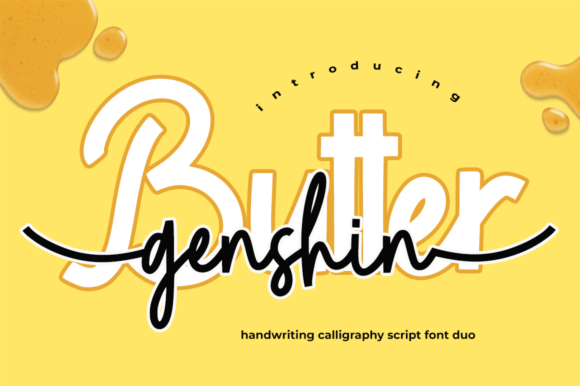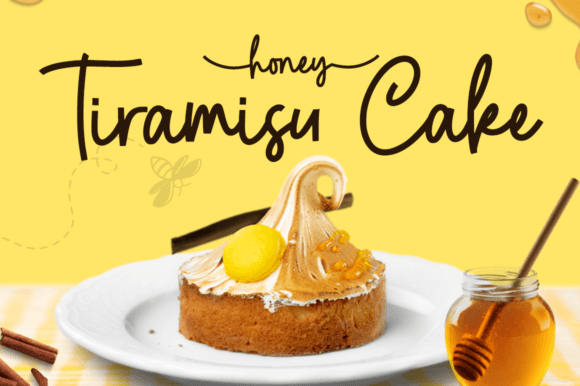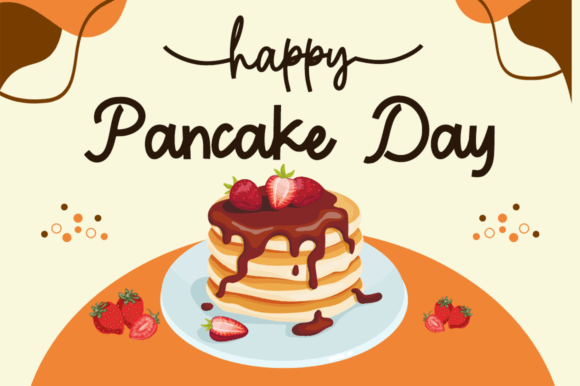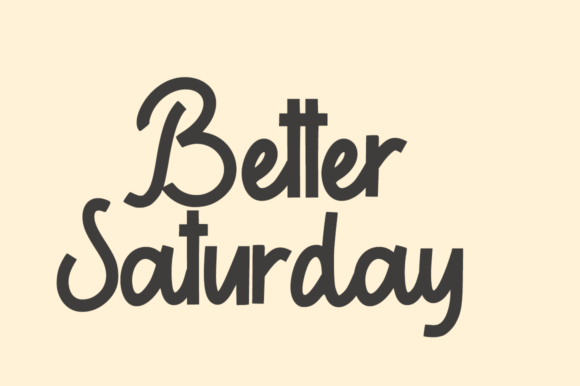
Butter Genshin Font: Elegant Script & Display Typography for Branding
About the Butter Genshin Font
Meet Butter Genshin Font, a stunning font that brings a touch of elegance and professionalism to any design. Indulge in the energizing spirit of Better Genshin – a minimalist yet striking duo of modern handwritten fonts duo, harmoniously blending script and display styles. Its elegant and well-proportioned characters seamlessly gel with diverse design aesthetics, making it a top-tier choice for charismatic logos, memorable brands, and stirring quotes. Unleash your most inventive concepts with Better Genshin and watch as it breathes life into them. With its PUA encoding, accessibility to its exciting array of glyphs and ligatures is as easy as pie! Refresh your designs with the edgy yet graceful Better Genshin.
Butter Genshin Font Usage Examples
Butter Genshin Font Example